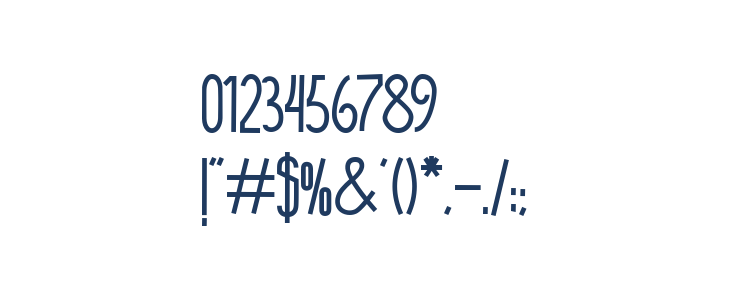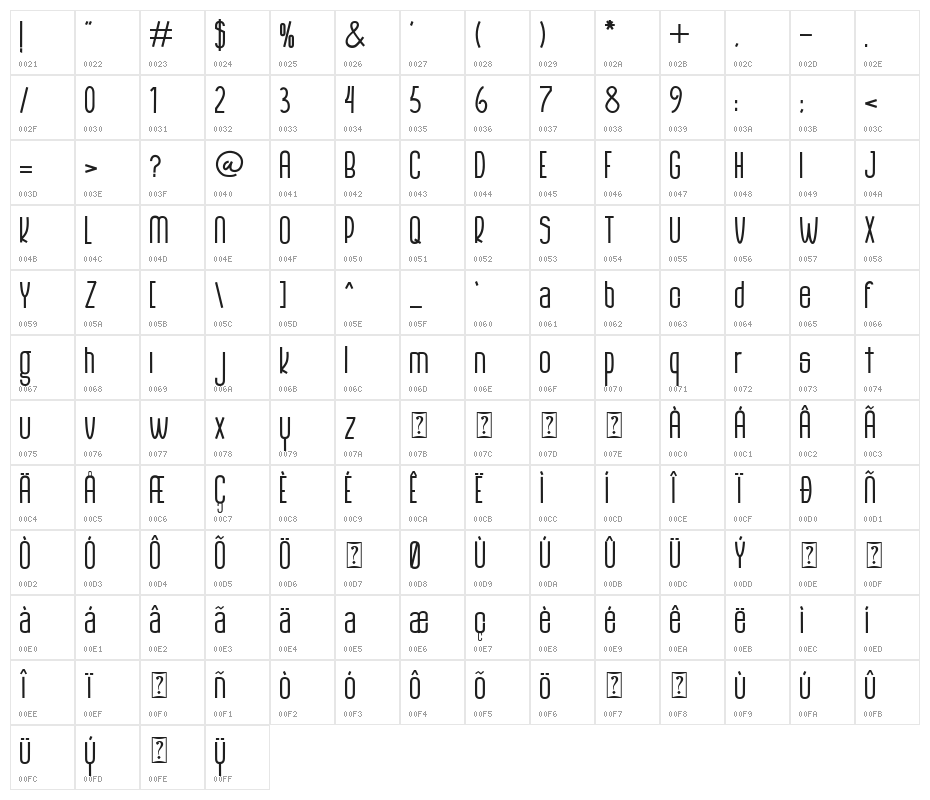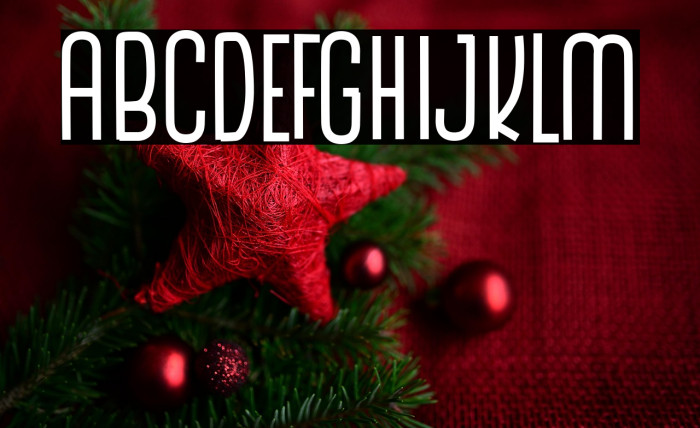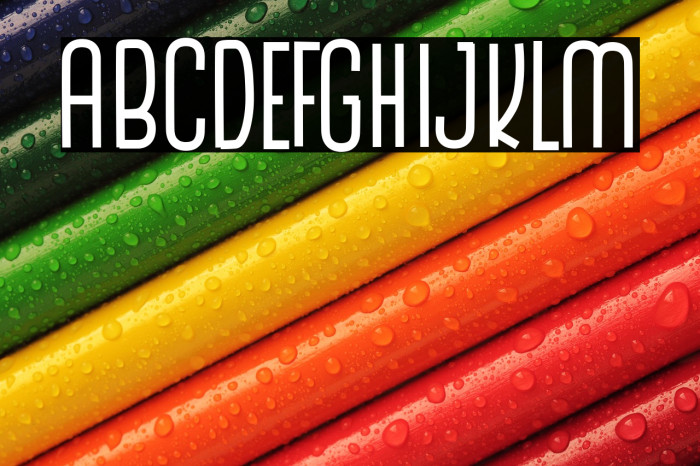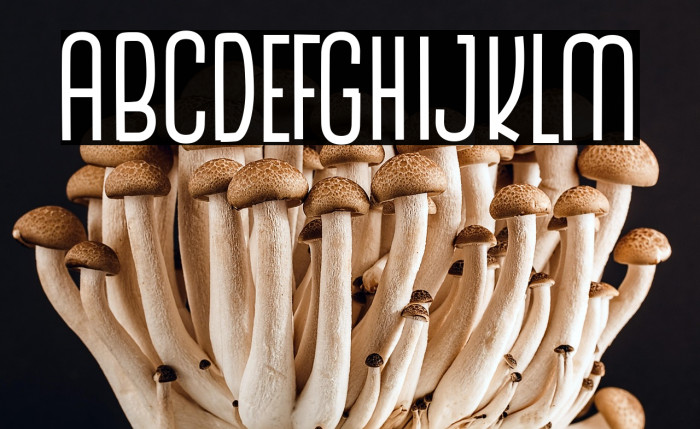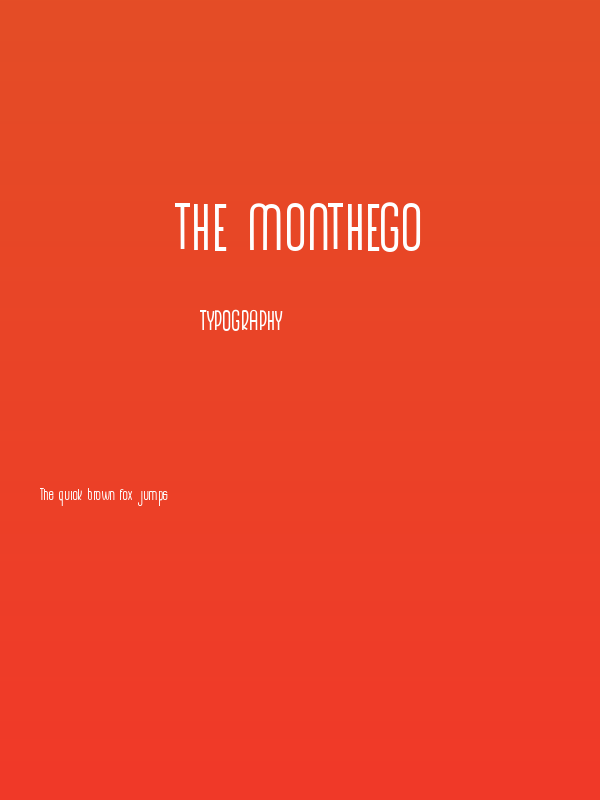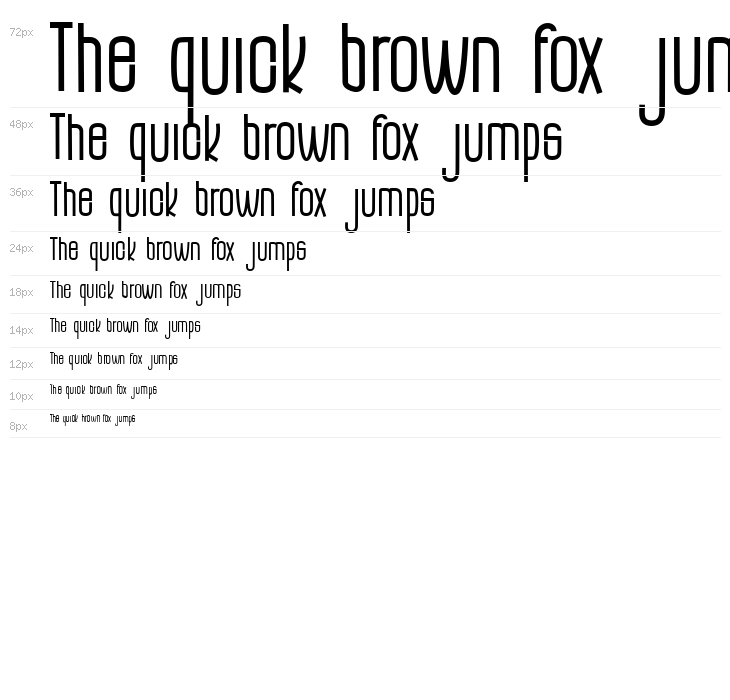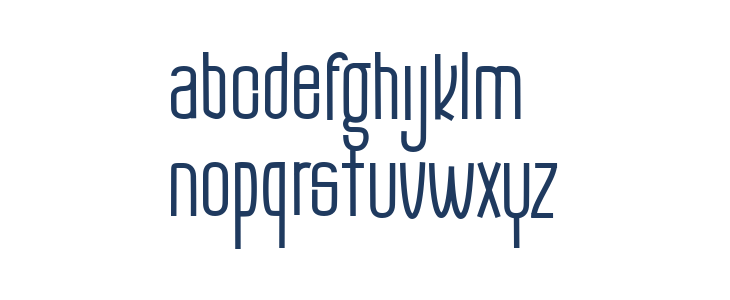
The Monthego Font
The Monthego Description
This font features a modern and sleek design with elongated, narrow characters that give it a distinctive and stylish appearance. The uppercase letters are tall and slightly condensed, while the lowercase letters maintain a consistent height, creating a harmonious balance. The numerals are uniform in width, ensuring readability and clarity. Special characters are designed with the same attention to detail, making them blend seamlessly with the rest of the font. The overall design is clean and minimalistic, making it suitable for contemporary projects that require a touch of elegance.